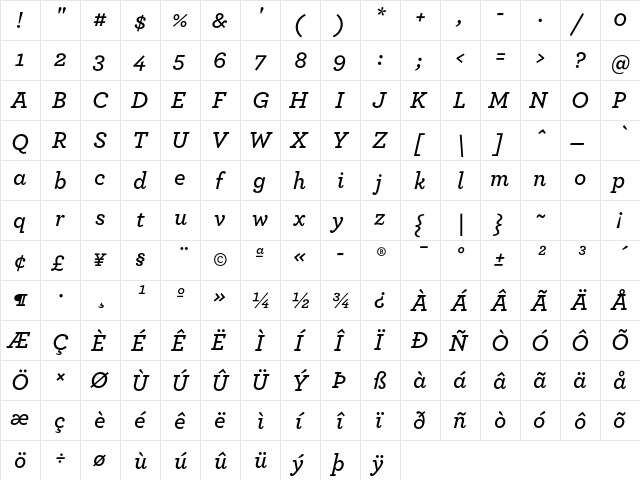
ArcherPro Semibold Italic
Design Context for ArcherPro Typeface
ArcherPro is a composed and adaptable typeface that performs quietly and consistently across a wide range of design contexts. Its italic angle brings a sense of urgency and motion to the letterforms. Its bold stroke weight gives it real presence on the page.
Pro Tip: Use ArcherPro for emphasis, pull quotes, and subheadings where its slanted energy can add rhythm to the layout.